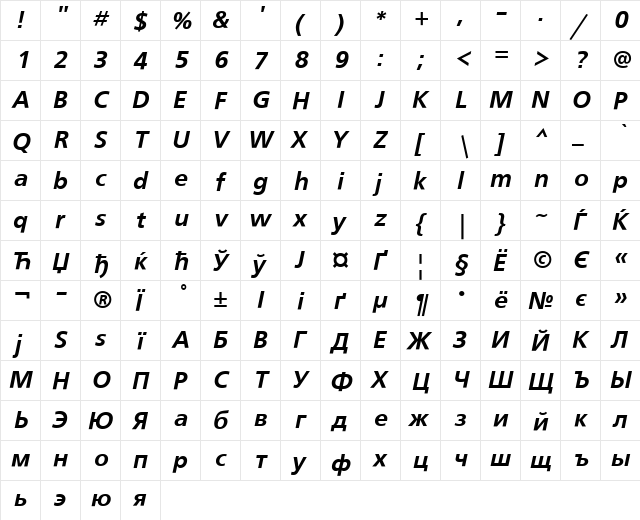
FreeSetC Italic
Design Context for FreeSetC Typeface
FreeSetC takes a measured approach to typography — its balanced proportions and neutral character make it a reliable workhorse for both digital and print work. The dynamic lean of this cut emphasises speed and emphasis in any layout.
Pro Tip: Try FreeSetC for annotation and caption copy alongside an upright companion — the contrast in angle creates a dynamic but ordered typographic system.